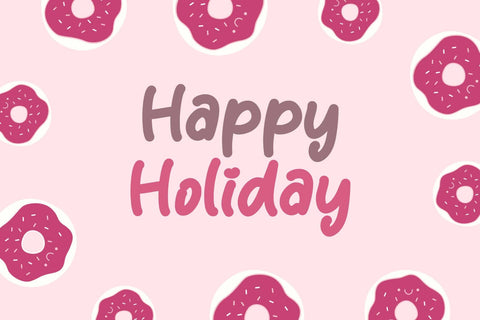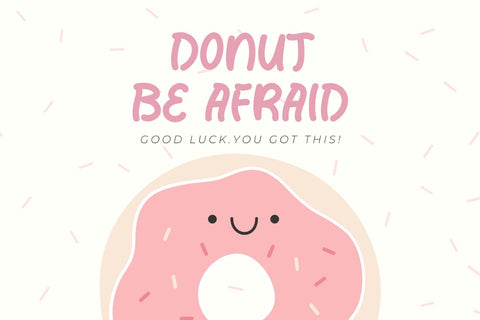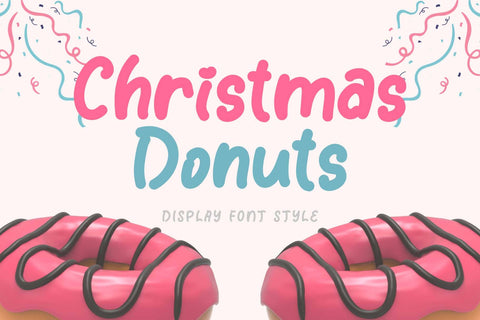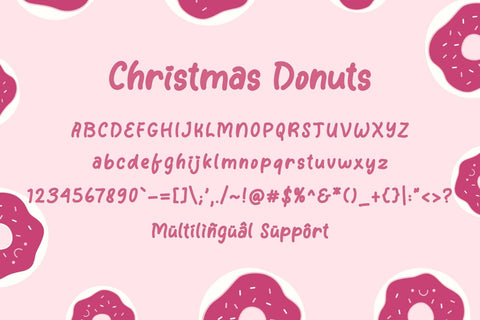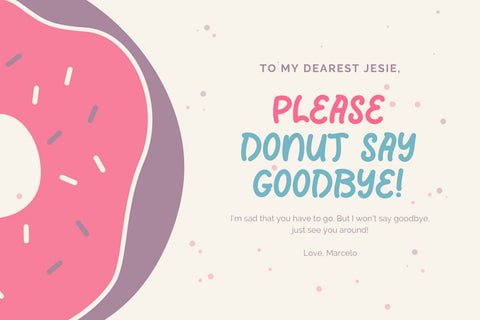
Christmas Donuts
"Christmas Donuts" is a cute display font. This font is equipped with uppercase, lowercase, numerals, punctuation, and multilingual support. Very suitable for Christmas, Valentine's Day, logos, banners, posters, stickers, business branding, birthdays, winter, Halloween, and others.